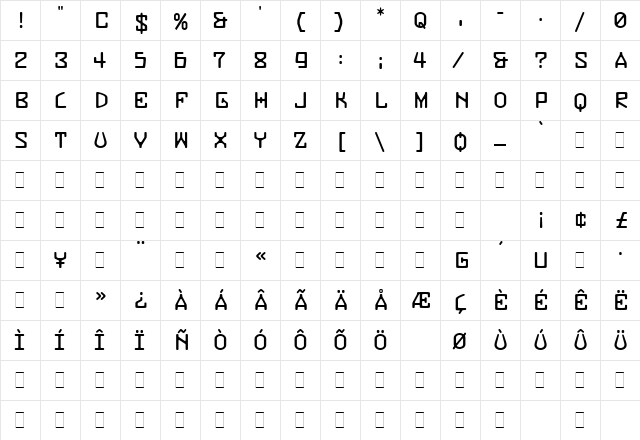
Buzzer Three LET Plain
Design Context for Buzzer Three LET Typeface
Buzzer Three LET takes a measured approach to typography — its balanced proportions and neutral character make it a reliable workhorse for both digital and print work.